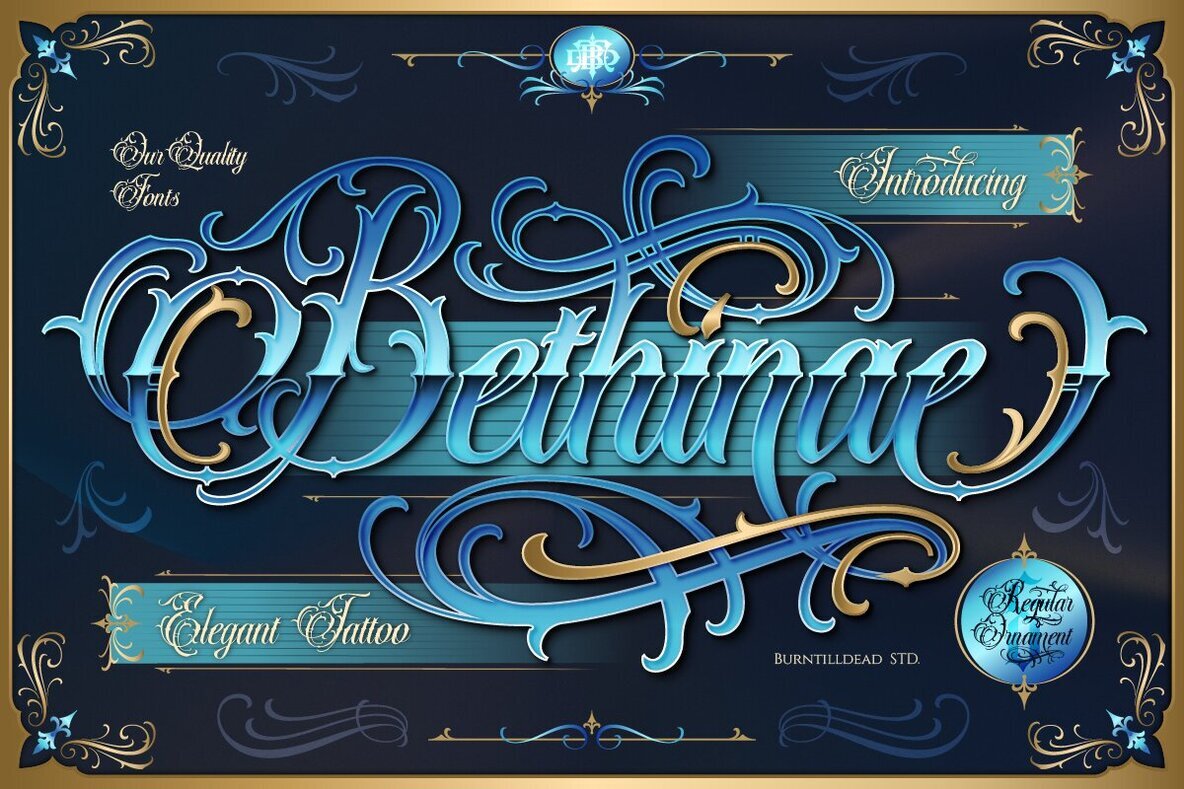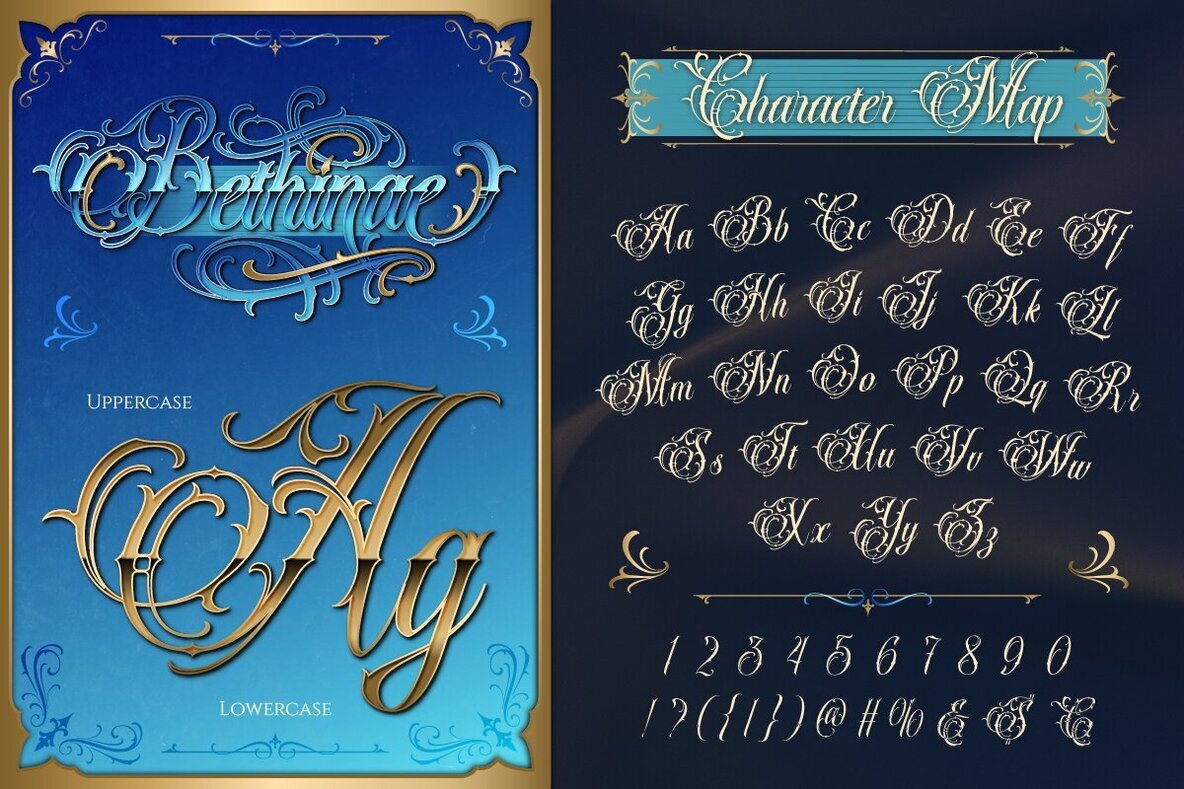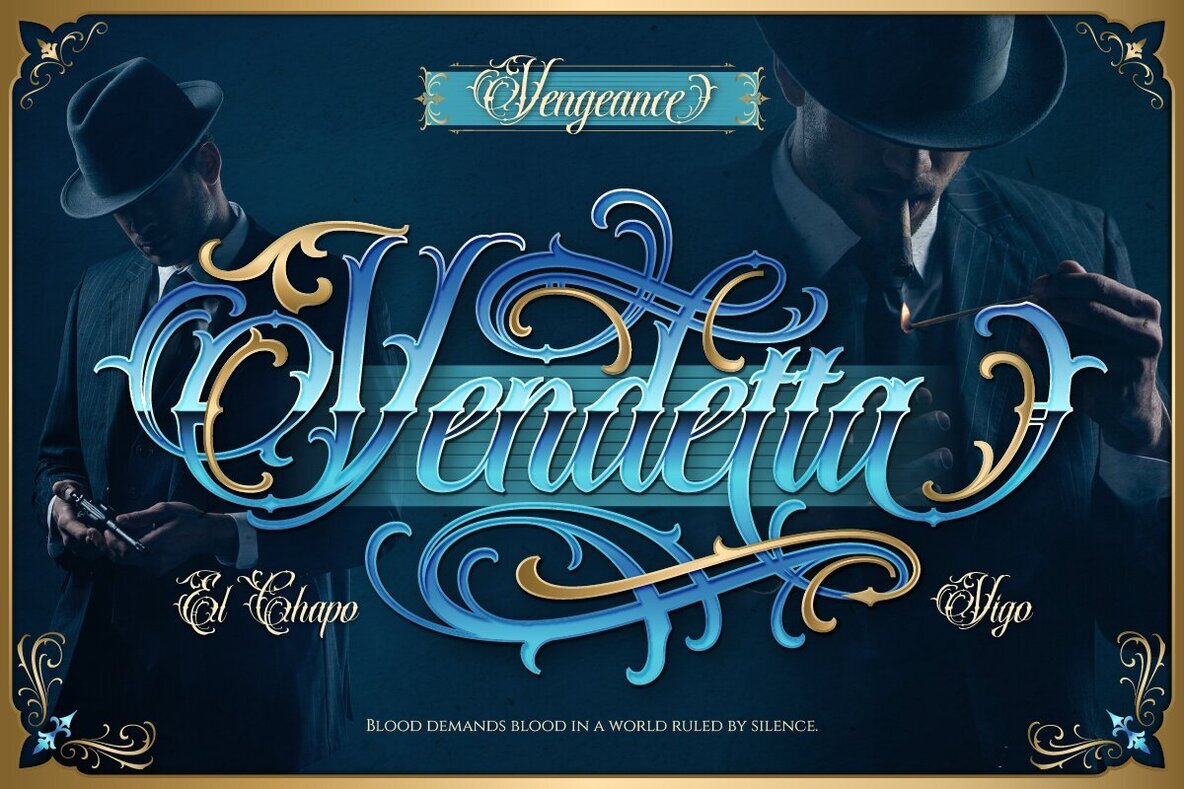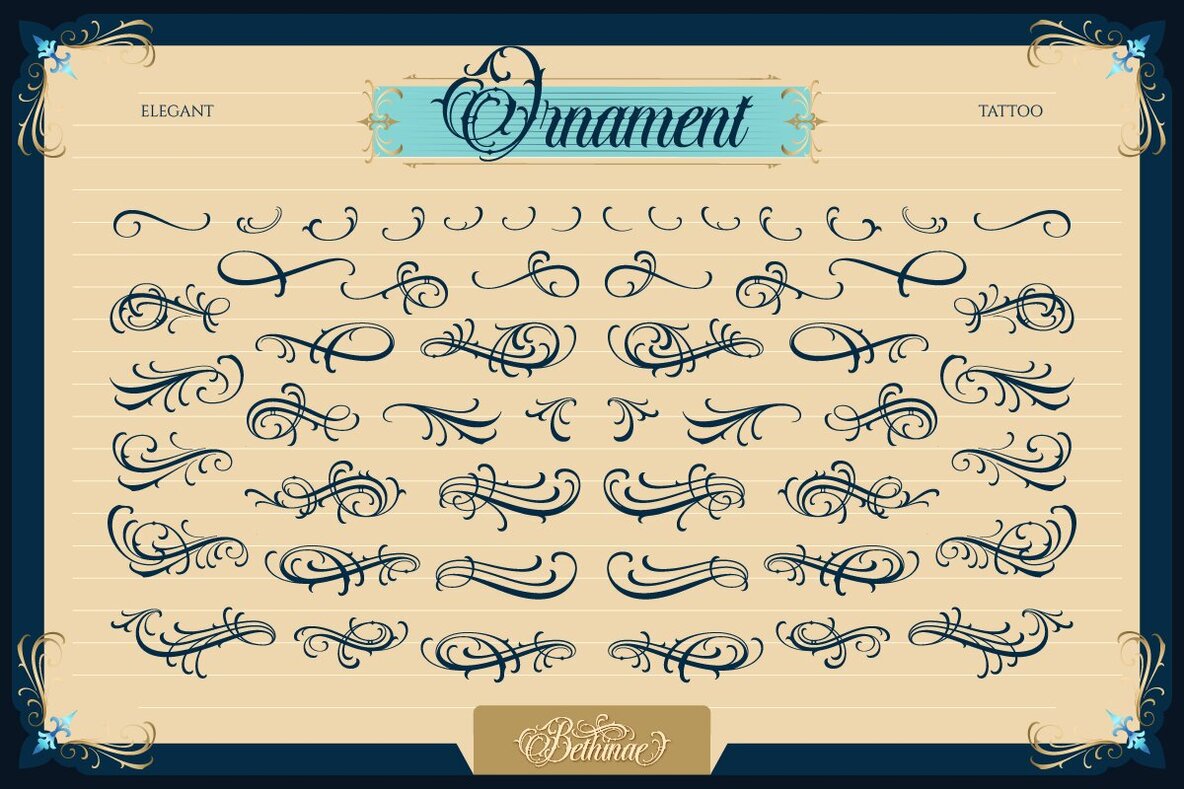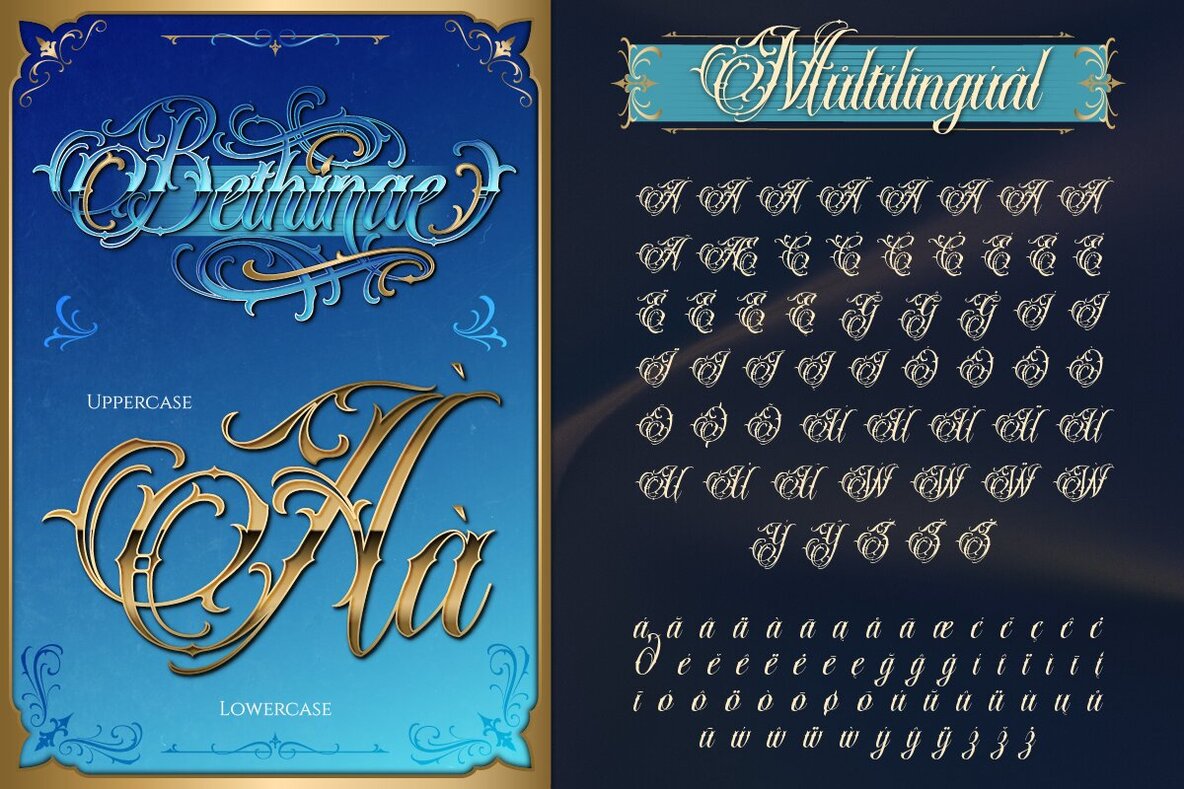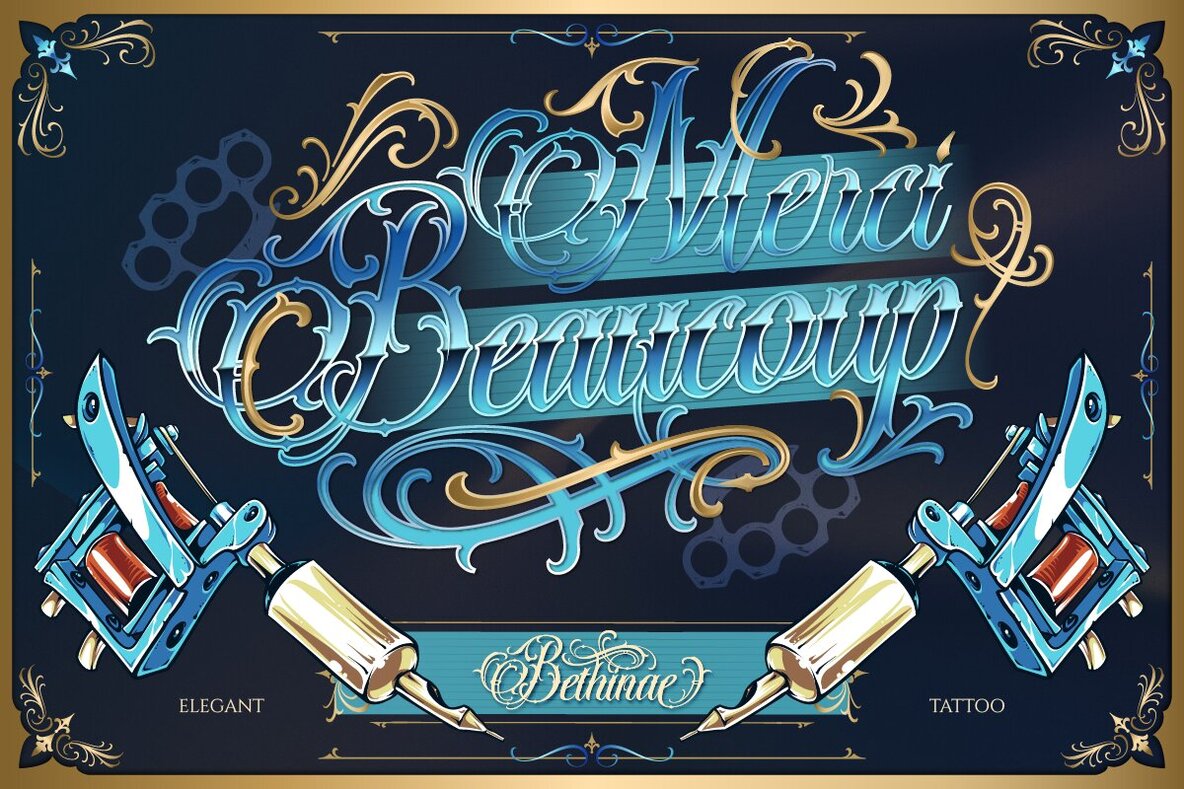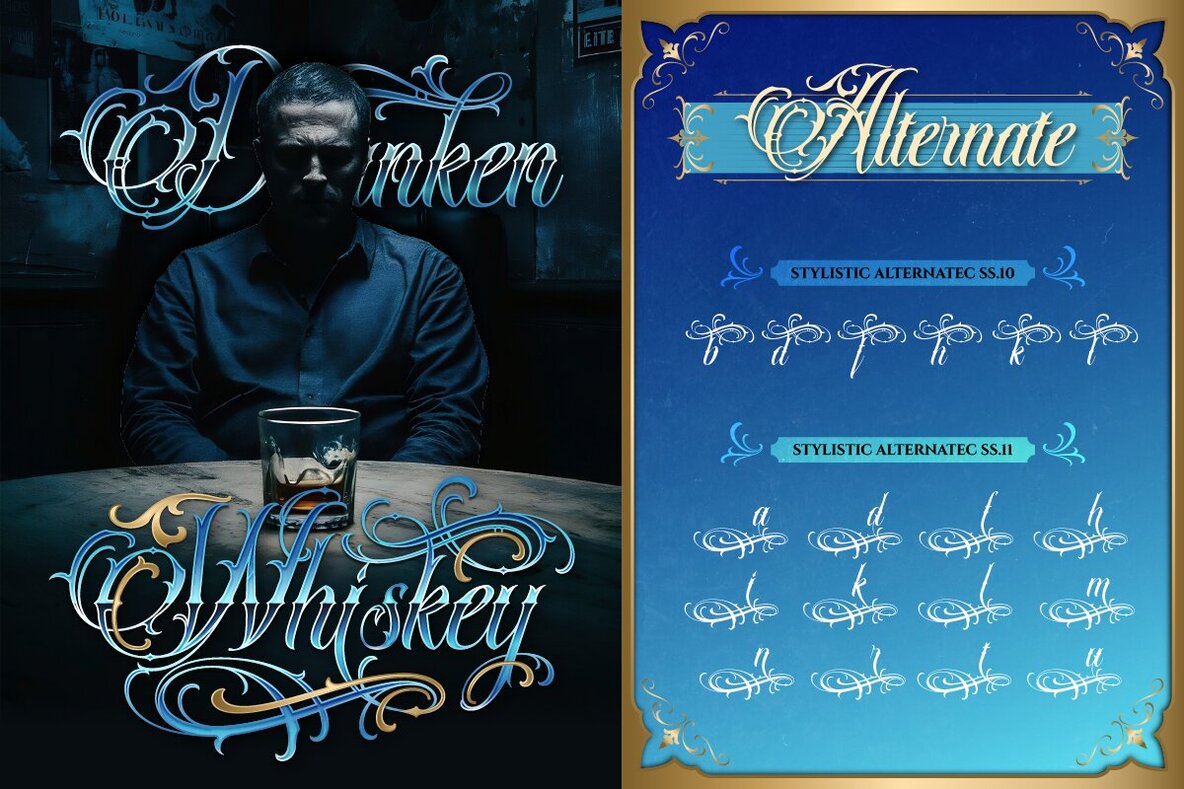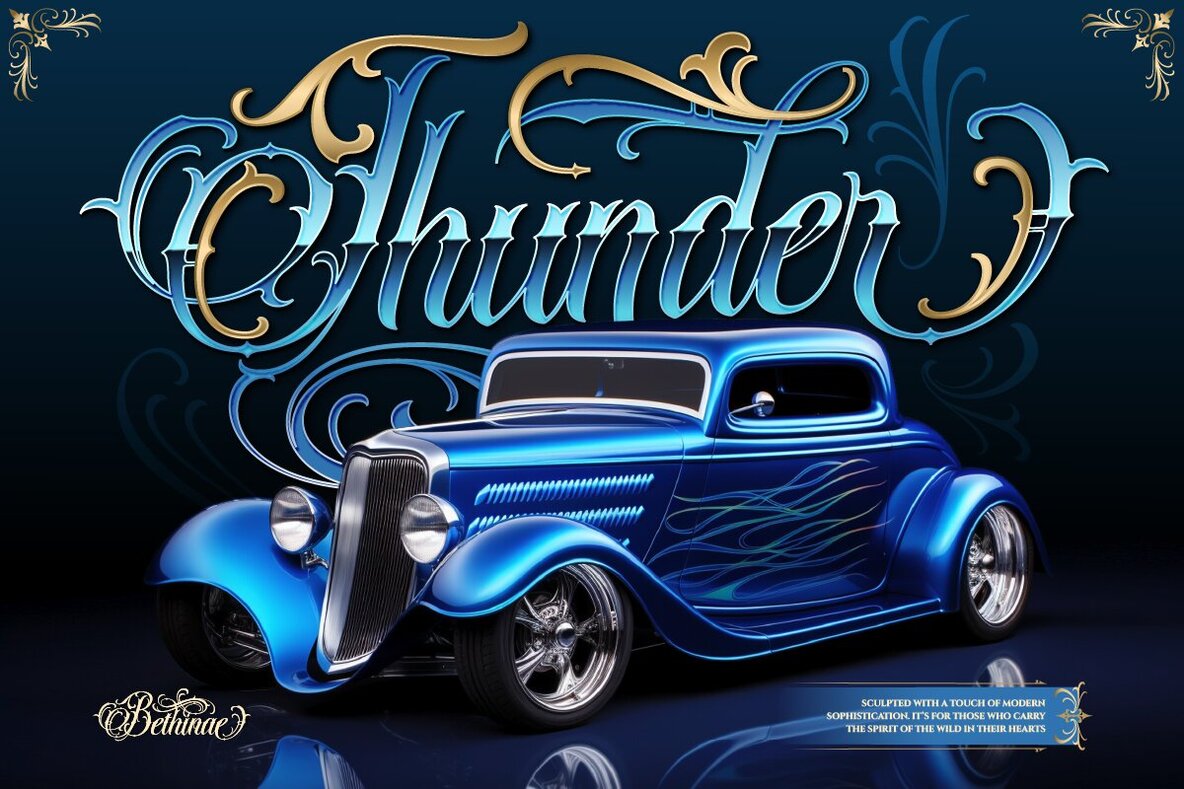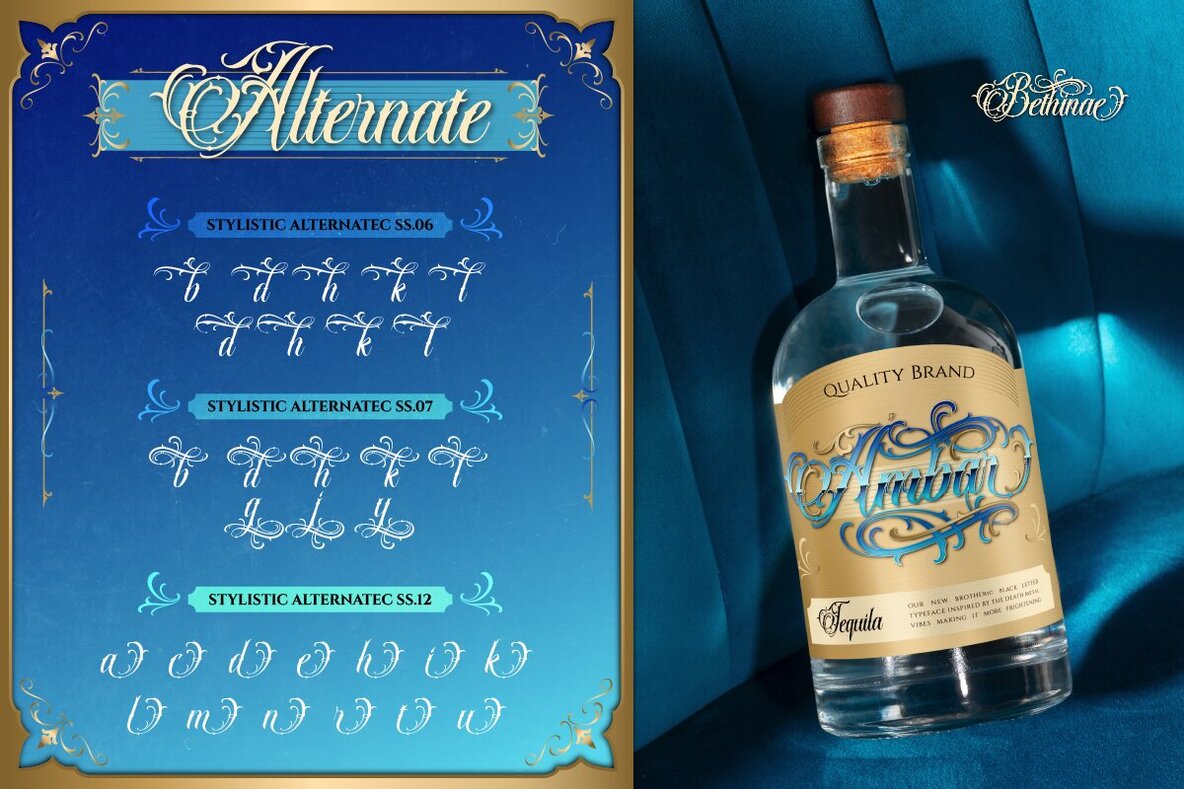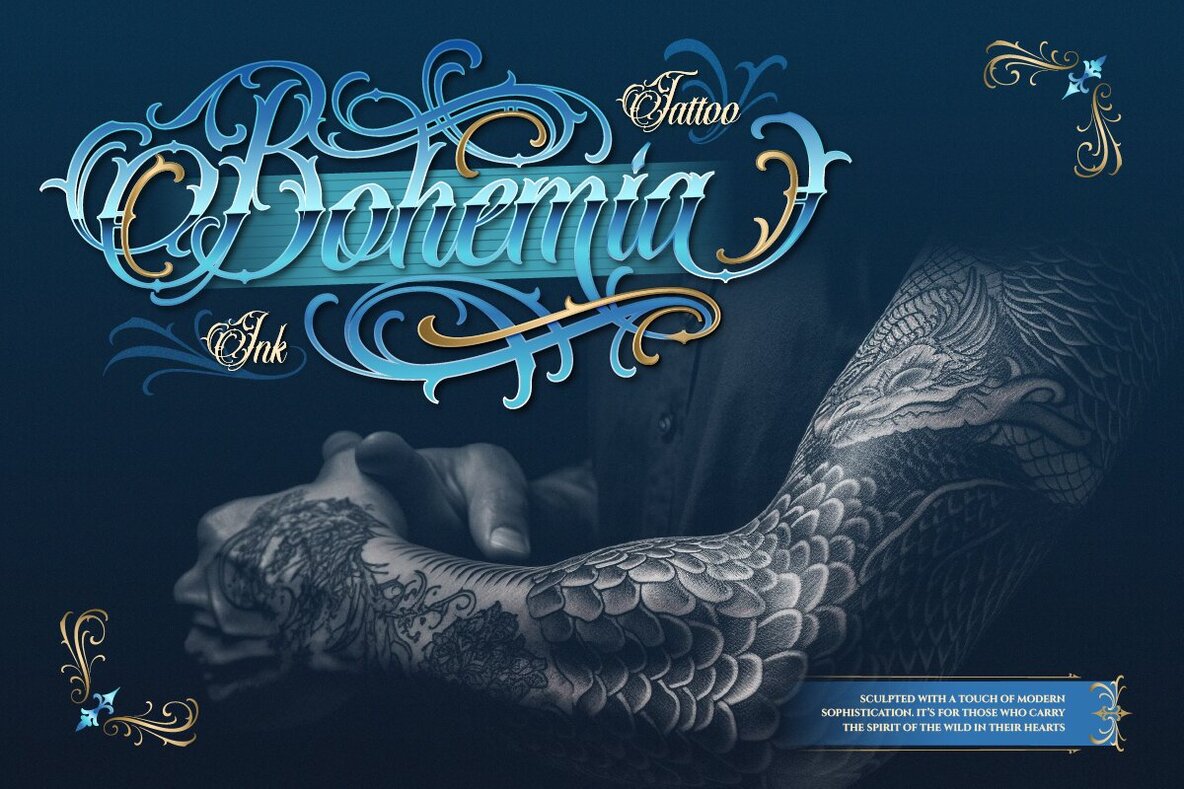
Bethinae Font
Bethinae Regular
Bethinae Ornament
The Bethodinal font presents a striking blend of elegance and masculinity, drawing inspiration from the bold forms of blackletter typography. This script font showcases detailed flourishes and stylish swirls, providing a unique aesthetic. Available in two styles, Regular and Ornaments, Bethodinal infuses an air of luxury and mystery. Its ornamental style enhances the visual appeal and adds a sophisticated yet edgy flair, invoking visions of elegant tattoos or exclusive club logos. Suited for barbershops, tattoo studios, luxury garages, and streetwear branding, Bethodinal brings a sense of refined allure to various creative projects.Bethodinal: A Script Font with Tattoo Flair